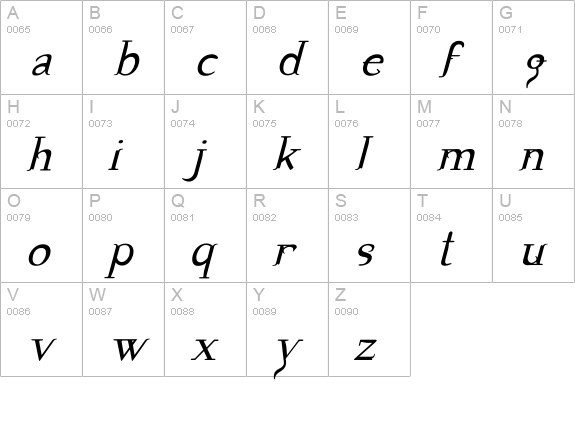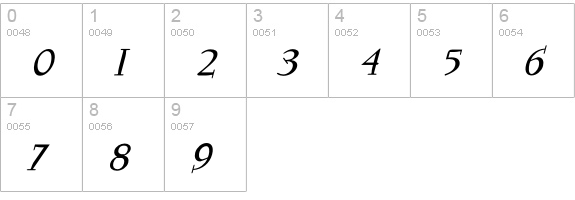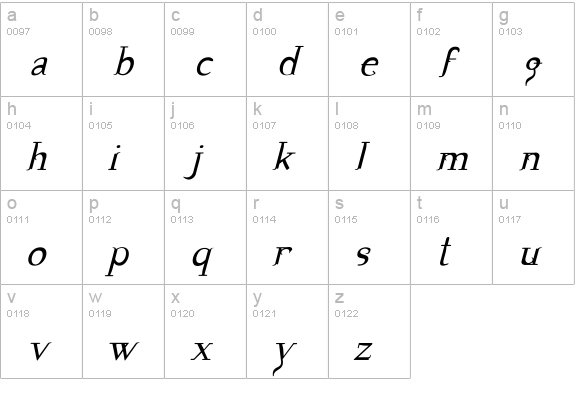
Tooth31-Italic is a distinctive, italic variant in the Tooth31 typeface family \xE2\x80\x94 well suited to design and typography projects.
Tooth31-Italic font is a modern and stylish typeface that adds a touch of elegance to any design. Its sleek and sophisticated curves give it a unique and eye-catching look, making it perfect for logos, branding, headers, and more. This font is specifically designed to bring a sense of professionalism and sophistication to your projects. One of the best things about Tooth31-Italic font is that it is free! Yes, you read that right. This stunning font is freely available to download at FontsMarket.com. With just a few clicks, you can have this beautiful font added to your collection, ready to be used in all your creative endeavors. Whether you are a graphic designer, a web developer, or simply someone who loves experimenting with typography, Tooth31-Italic font is a must-have. Its clean and modern design makes it incredibly versatile, suitable for both digital and print projects. From website designs to social media graphics, this font will make your creations stand out from the crowd. With its italic style, Tooth31-Italic font adds a touch of sophistication and elegance to any text. It effortlessly conveys a sense of creativity and professionalism, making it perfect for projects that require a bold and stylish look. Whether you are designing a magazine cover, a poster, or an invitation, this font will elevate your design to the next level. The versatility of Tooth31-Italic font is another reason why it is so popular. It pairs beautifully with other fonts, allowing you to create unique and dynamic typography combinations. Whether you want to create a bold and impactful headline or a subtle and elegant body text, this font has got you covered. So why wait? Download Tooth31-Italic font for free at FontsMarket.com and start adding a touch of elegance and sophistication to your designs today. With its sleek and stylish design, this font is sure to become a favorite in your collection. Don't miss out on the opportunity to enhance your projects with this stunning and freely available font.